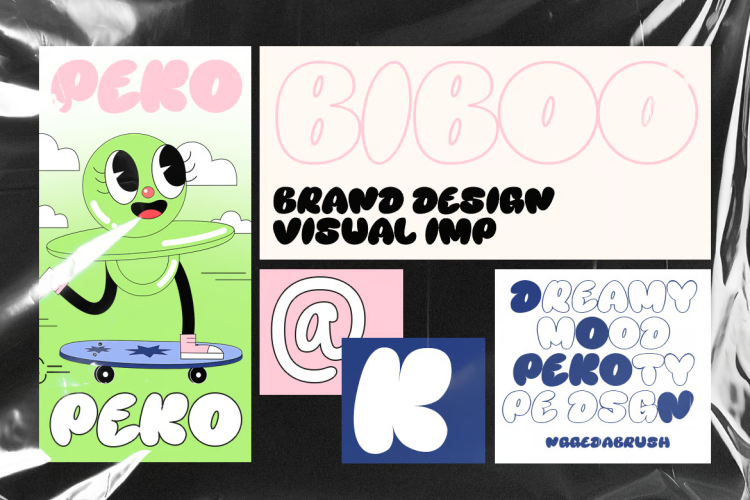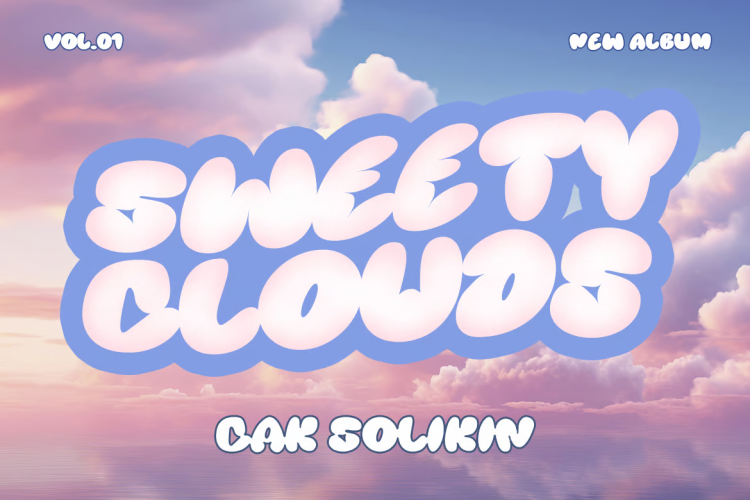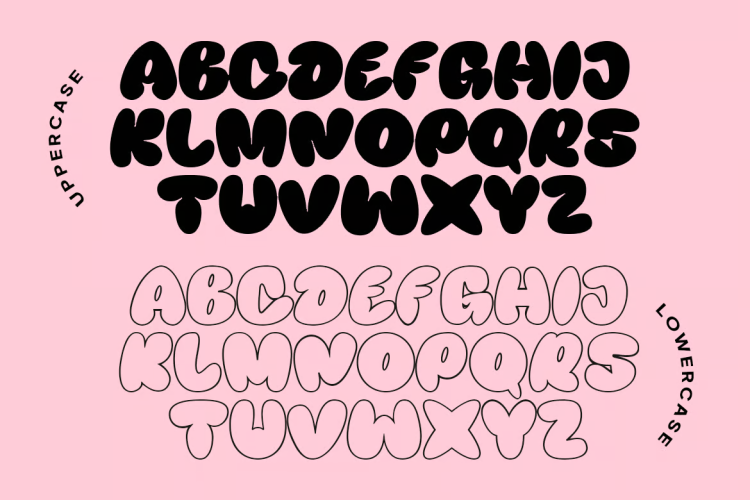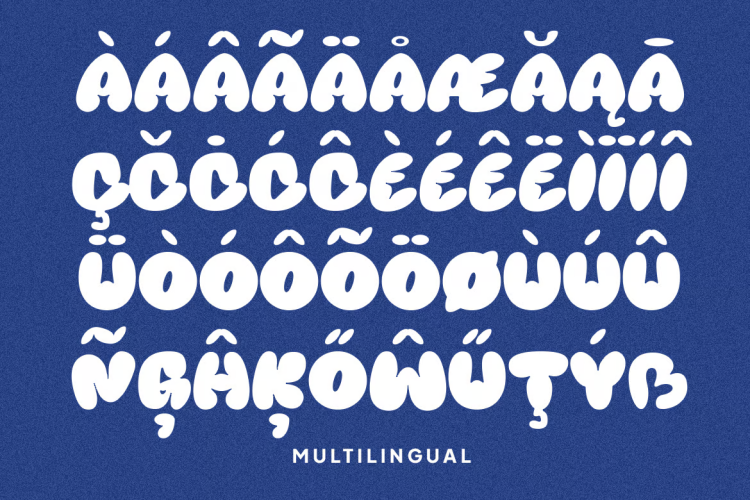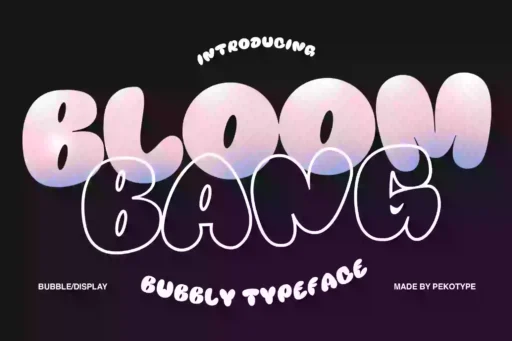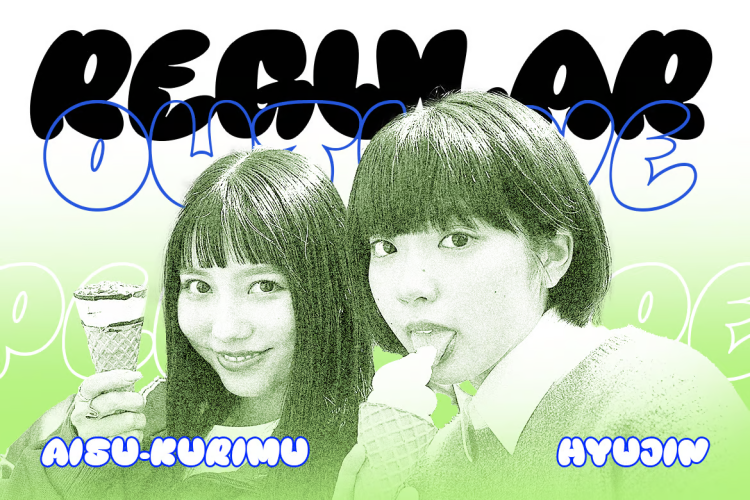
Bloombang Font
Meet BLOOMBANG, a fun and bold display font that takes you back to the Y2K era! Inspired by graffiti culture and retro-futurism, this font is full of energy.
With big curves and playful shapes, BLOOMBANG is perfect for posters, apparel, logos, and more. It gives your designs a nostalgic early 2000s feel with a fresh modern twist.
Features:
Regular & Outline versions
Numbers & punctuation included
Multilingual support
Where Bloombang Font works best
Bloombang Font is built for size: event posters, hero headlines and billboard-style layouts.
High contrast display type like Bloombang Font reads instantly in thumbnails and motion graphics.
What is Bloombang Font good for?